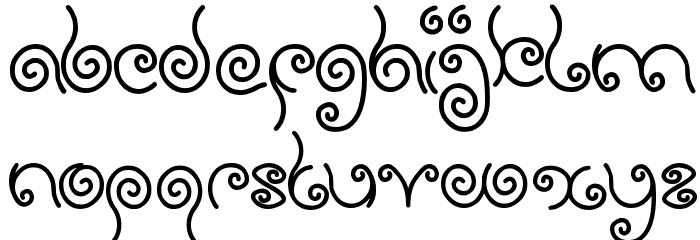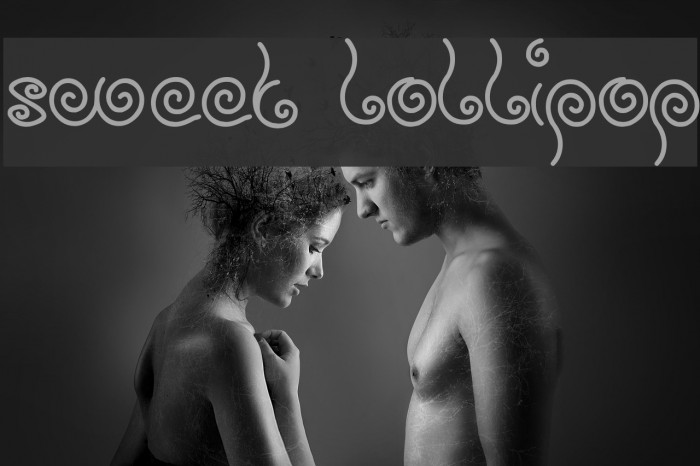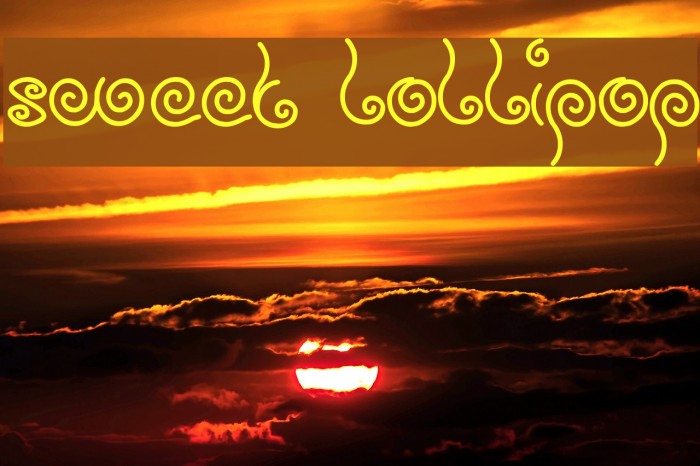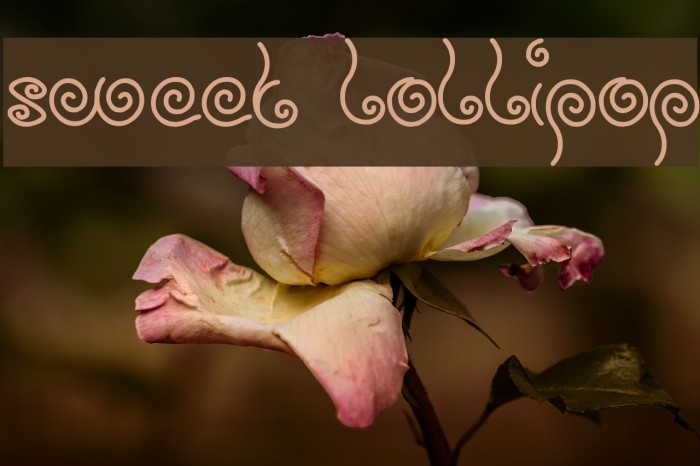
sweet lollipop Font
This font features a whimsical and playful design, characterized by its swirling, spiral-like strokes that give each letter a unique, decorative appearance. The letters are crafted with a consistent thickness, creating a harmonious and balanced look. The font's style is reminiscent of playful doodles or artistic handwriting, making it stand out with its creative flair. Each character is distinct, yet they all share the same swirling motif, which adds to the font's cohesive and artistic feel. This font is perfect for projects that require a touch of creativity and fun, such as children's book covers, playful branding, or artistic posters.
A whimsical, spiral-themed decorative font with playful, artistic strokes.
- Proposed Projects: Ideal for children's books, playful branding, artistic posters, and creative invitations.
- Use Case: Logos, Headlines, Artistic projects